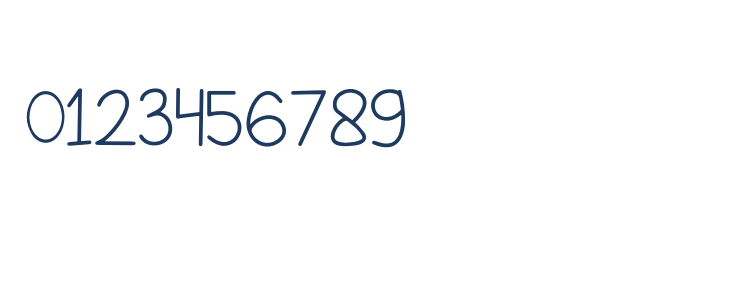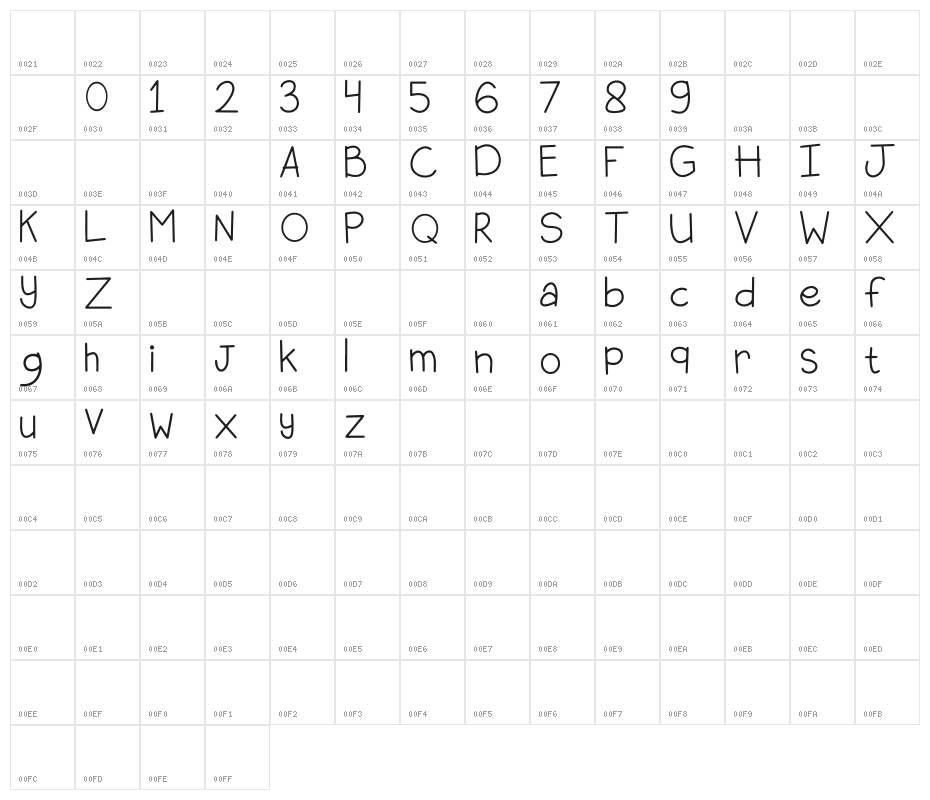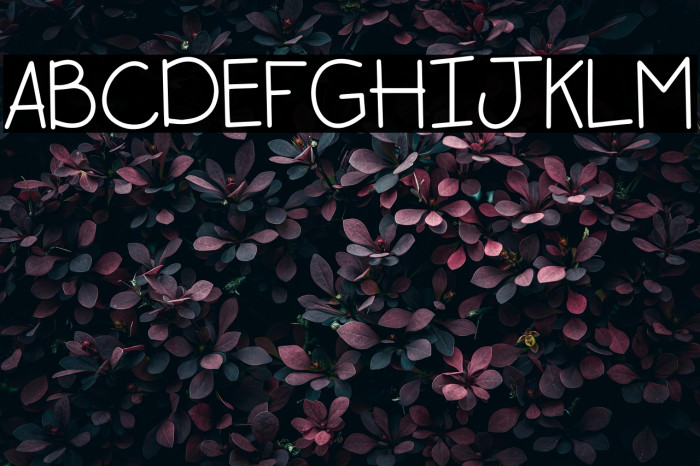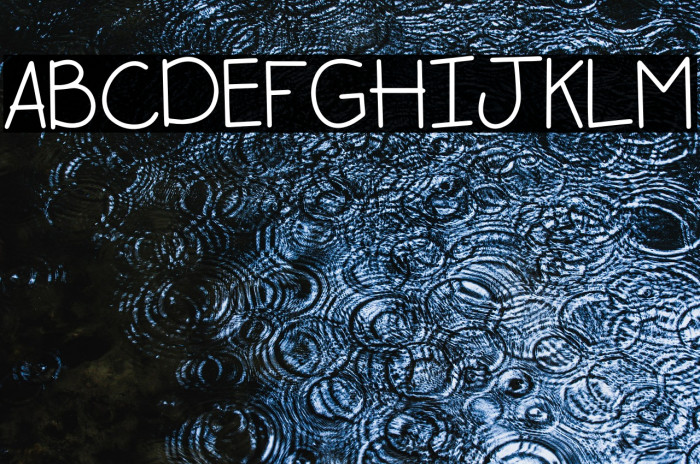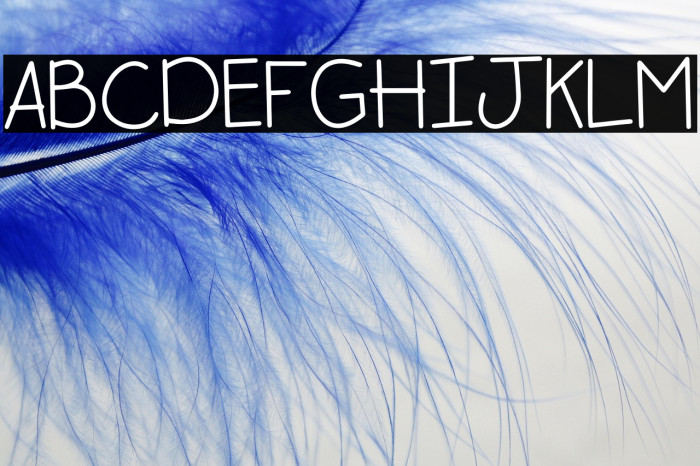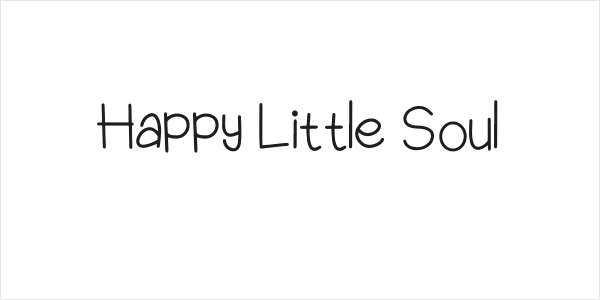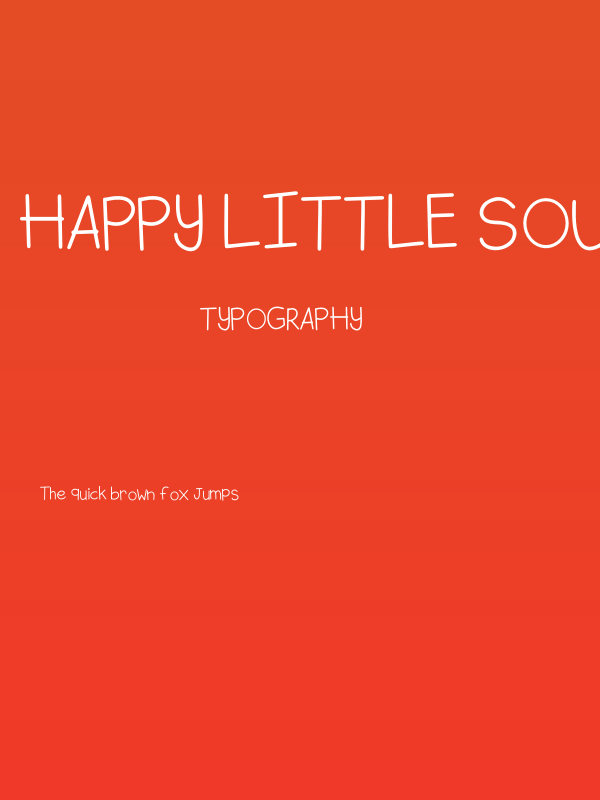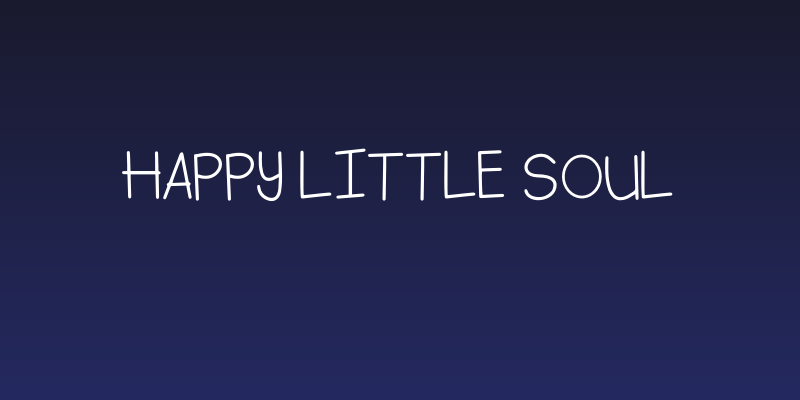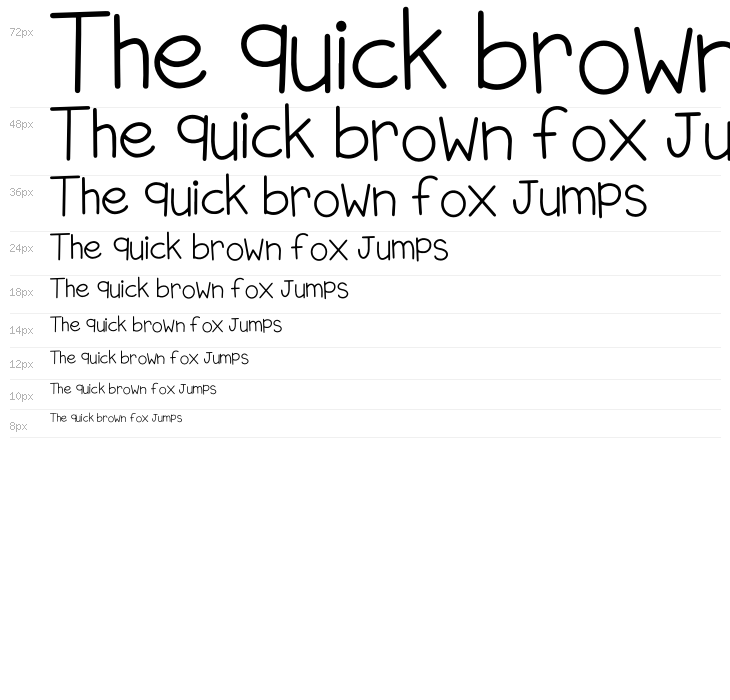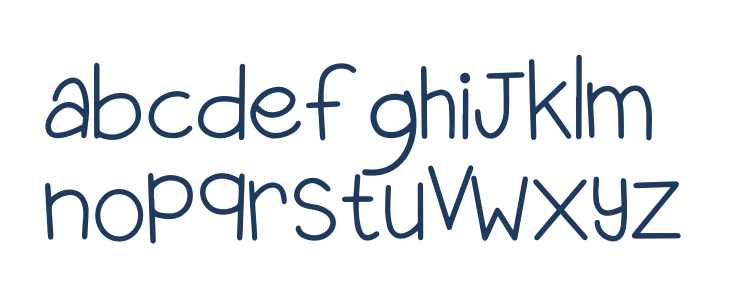
Happy Little Soul Font
Happy Little Soul Description
This playful and whimsical font features rounded, slightly irregular characters that convey a sense of friendliness and approachability. The strokes are consistent in width, giving it a uniform appearance while maintaining a hand-drawn feel. The uppercase letters are tall and narrow, while the lowercase letters are more rounded, creating a nice contrast. The numerals are clear and easy to read, matching the overall style of the alphabet. This font is perfect for projects that require a touch of fun and creativity, making it ideal for children's books, playful branding, or casual invitations.
| Use Case | Headlines, Logos, Informal text |
| Proposed Projects | Children's books, playful branding, casual invitations, greeting cards. |